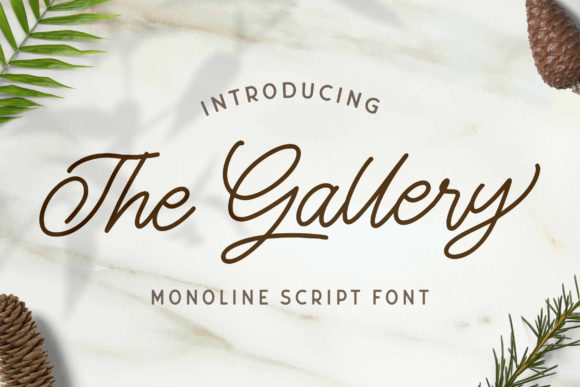
The Gallery Font: A Monoline Script for Modern Web Design
When you spend your days building digital products, landing pages, or brand identities for online stores, you learn quickly that typography is never just decoration. Every typeface carries a tone, a rhythm, and a set of technical constraints that either help or hurt the experience you are trying to create. For years, I relied heavily on clean sans serif families for body copy and reserved display fonts for hero sections. But there is a gap in most design toolkits: a script font that feels natural on screen, behaves predictably across breakpoints, and adds warmth without sacrificing clarity. The Gallery, a monoline script typeface with elegant swashes and ligatures, fills that gap in a way that few other fonts do.
The Gallery is not trying to mimic handwriting or push into brush-lettering territory. It is a monoline script, meaning the stroke thickness remains consistent throughout each letter. That consistency makes it far more readable at smaller sizes than most calligraphy or script fonts, and it gives the typeface a clean, almost architectural feel. The swashes and ligatures are present, but they are not overwhelming. They add movement and personality without competing with the content. For a web designer, this is the kind of script that works as a genuine UI element, not just an ornamental afterthought.
Visual Characteristics That Work on Screen
The first thing I notice when I open a font in my design software is how it handles letter spacing and the natural rhythm of lowercase and uppercase combinations. The Gallery has a balanced x-height that keeps the lowercase characters legible even when you shrink them down to button sizes or secondary headings. The swashes are mostly attached to terminal letters like capitals or final lowercase characters, which means you can use them selectively without breaking the flow of a word.
Because the font is monoline, it renders smoothly on digital displays. There is no thick-thin contrast that gets lost or aliased on low-resolution screens or when the font is placed over image backgrounds. The Gallery holds its shape whether you are viewing it on a 27-inch monitor or a phone held in portrait mode. That reliability is rare among script fonts, and it makes the typeface suitable for production work rather than just mockups.
Where The Gallery Fits in a Web Layout
In my own projects, I have found The Gallery works best when it is given room to breathe. It is a display script by nature, but its monoline structure means it does not need enormous point sizes to stay legible. Here are the specific layout areas where this typeface performs well:
Hero Sections and Landing Page Headlines
The most obvious placement for The Gallery is in hero titles, especially on creative portfolio sites, boutique online stores, coaching homepages, and course sales pages. A single word or a short phrase set in The Gallery immediately signals personality and craftsmanship. Because the font includes contextual alternates and ligatures, you can tweak the letter combinations to avoid awkward overlaps or gaps. I often pair a hero headline in The Gallery with a muted background image or a solid color block, keeping the contrast high to let the swashes stand out.
Call-to-Action Buttons and Short Phrases
One of the most surprising uses I have discovered is in call-to-action buttons. The Gallery’s uppercase letters are open and friendly, and a two-word CTA like “Shop Now” or “Get Started” in the font instantly feels more personal than the same phrase in a geometric sans. The key is to keep the button size generous and the background clean. I would not recommend using The Gallery for long button text, but for short, high-impact phrases, it lifts the conversion area above the ordinary.
Section Headings and Accent Text
On landing pages and content sections, The Gallery works well as a secondary heading or an accent line. For example, a testimonial section might use a small script heading like “What Clients Say” before the body copy in a simple sans. The contrast between the script and the supporting type creates a clear visual hierarchy. It directs the eye without shouting. The same approach works for blog headers, email signup sections, and pricing tables.
Logo Text and Brand Marks
If you are building a brand kit for a client, The Gallery can serve as the primary logo font or as an accent within a logotype. Its monoline consistency makes it scalable for favicons, app icons, and social media avatars. The swashes add enough character that you may not even need an additional graphic mark. Many of my clients in the creative and lifestyle spaces have adopted The Gallery as their core brand typeface because it feels both refined and approachable.
Readability and Digital Performance
Readability is where most script fonts fail in web design. They blur at small sizes, lose definition on dark backgrounds, or create awkward letter pairings that break the visual flow. The Gallery avoids these pitfalls because of its monoline construction. The even stroke width keeps each letter distinct, even at 14px or 16px on mobile. That is not to say you should use it for body paragraphs, but for short text blocks, labels, and decorative elements, it stays readable.
On dark backgrounds, The Gallery benefits from a light color or a subtle text shadow. The swashes can be thin at the terminals, so a small amount of padding or letter-spacing helps maintain clarity. On light backgrounds, the font feels natural and airy, especially when paired with ample white space. I have also used it as an overlay on hero images by adding a semi-transparent gradient behind the text. This keeps the script legible while preserving the visual impact of the photograph or illustration.
Pairing The Gallery with Supporting Typefaces
No script font works in isolation on a website. You need a complementary typeface for body copy, navigation, captions, and long-form content. The Gallery pairs best with simple, neutral fonts that do not compete for attention. A clean sans serif like Inter, Work Sans, or Open Sans is a natural match. The sans serif provides structure and clarity for body text, while The Gallery brings warmth and personality to headings and accents.
If you want a more editorial feel, a serif font like Merriweather or Playfair Display can work alongside The Gallery. In that case, the serif handles the body copy and the script takes the hero space. The contrast between a classic serif and a modern monoline script creates a sophisticated, high-end look that works well for coaching programs, premium product pages, and lifestyle blogs. The key is to keep the serif family simple, avoiding overly ornate serifs that might clash with the swashes in The Gallery.
Practical Examples for Real Projects
Let me walk through a few concrete scenarios where The Gallery has performed well in my own client work.
- Creative portfolio site: The home page uses a full-screen hero with the designer’s name in The Gallery, set large over a muted image. The navigation and project descriptions are in a light sans serif. The script adds a personal feel without distracting from the portfolio pieces.
- Boutique online store: The product category headers use The Gallery for the section titles like “New Arrivals” and “Summer Collection.” The product names and prices are in a clean sans. The script headings create a boutique feel that separates the store from a generic marketplace.
- Course sales page: The main headline uses The Gallery for the course name, and a subheading in a sans serif explains the benefits. The testimonials section uses the script as an accent for the quote attribution. The overall page feels personal and trustworthy, which is critical for conversion.
- Blog header: The blog name appears in The Gallery at the top of each post. The post titles are in a serif, and the body is in a sans. The script header gives the blog a consistent brand anchor that readers recognize immediately.
Responsive Considerations for Mobile and Tablet
Mobile design requires extra attention when using any script font. The Gallery handles responsive layouts well if you adjust the sizing intentionally. On desktop, I might set a hero headline at 72px or 96px. On tablet, that drops to 48px, and on mobile, 32px to 36px works best. The monoline structure keeps the letters readable at these smaller sizes, but you should test the swashes carefully. Some alternate characters with longer tails may need to be swapped for simpler forms on narrow screens.
For buttons and small accents, keep The Gallery at a minimum of 18px to 20px on mobile. Below that, the thinner parts of the swashes may start to disappear. If you need smaller text, use the sans serif companion instead. The goal is to use The Gallery where it adds value and switch to simpler typefaces where clarity matters most.
File Formats, Styles, and Licensing Notes
When you download The Gallery, check that you receive the font in common web formats. For self-hosted websites, you typically need WOFF and WOFF2 files. If you are using a platform like Shopify, Squarespace, or Webflow, you may need to upload the font files or link via a web font service. The Gallery comes with its full set of swashes and ligatures in the standard font file, so you do not need separate style packs for the decorative features.
The Gallery includes uppercase and lowercase letters, numerals, punctuation, and multilingual support for most Western European languages. If your project requires extended character sets, check the product listing for specific language coverage. The number of styles is limited to the single script weight, which is expected for a monoline script. This is not a multi-weight family, so you rely on pairing for variation.
Commercial licensing is a straightforward requirement for any web designer working with paying clients. If you are using The Gallery for a client website, an online store, a landing page, a digital template, or any branded asset that generates revenue, you need a commercial license. The same applies if you use the font in app screens, software interfaces, or digital products sold to others. Always read the license agreement included with your download to confirm the number of projects, the scope of use, and whether the license covers webfont hosting. Investing in a proper license protects both you and your client and ensures the typeface remains available for future updates and support.
Bringing The Gallery into Your Design Workflow
Adding The Gallery to your toolkit is a simple way to elevate projects that need a human touch. It works for hero sections, CTAs, section headings, logo text, and decorative accents. It is readable on mobile, behaves well on dark and light backgrounds, and pairs naturally with both sans serif and serif families. For web designers who have struggled to find a script that feels modern without being trendy, or elegant without being fussy, The Gallery offers a practical solution.
Next time you are building a landing page for a creative entrepreneur, setting up an online store for a boutique brand, or designing a digital product that needs a distinct voice, try The Gallery in the hero headline and see how it changes the tone of the page. It is a Script Amp font that earns its place in production work, not just in mockup files.